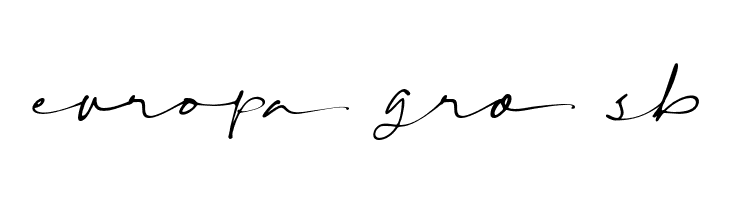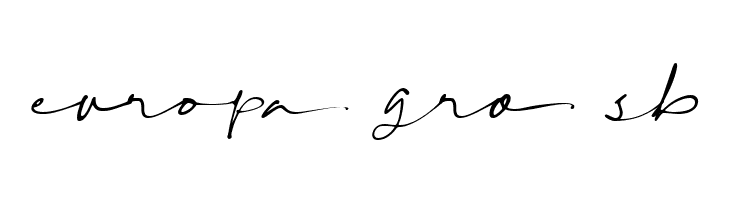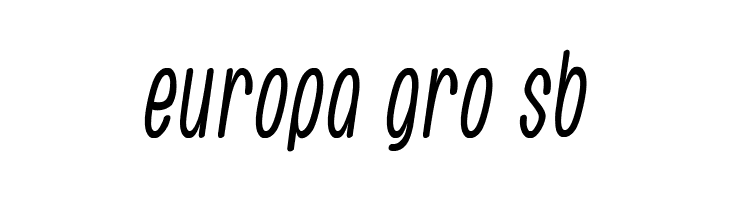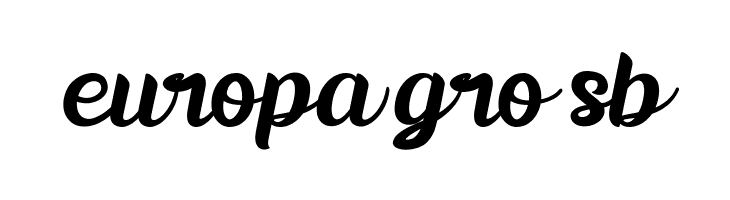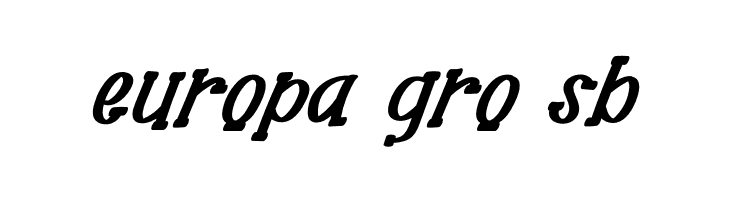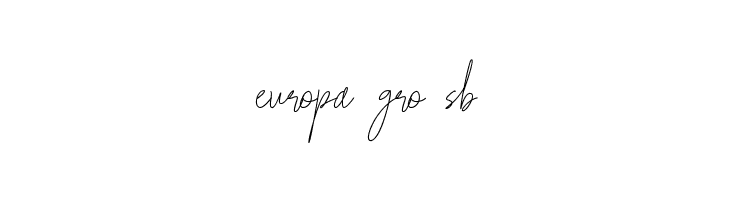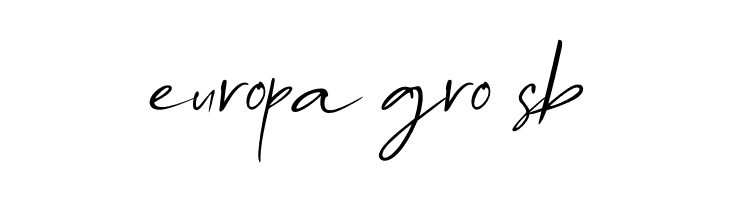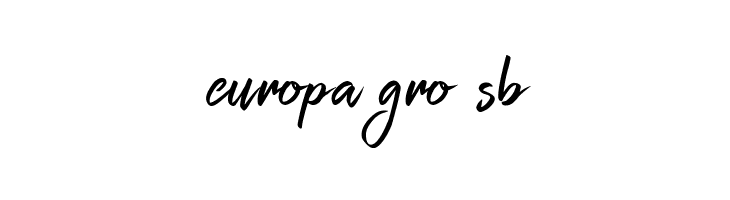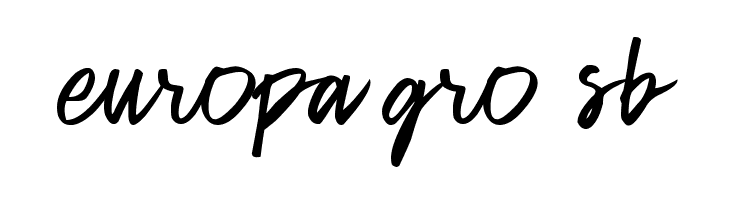
A stylish, slanted script font with a handwritten, elegant flow.
A stylish, slanted cursive font with a modern handwritten feel.
A playful, handwritten font with tall, narrow, and slightly slanted letters.
A bold, brush-style script font with dynamic, slanted characters.
A bold, modern script font with dynamic slanted characters and elegant curves.
A bold, dynamic script font with strong, slanted characters.
A casual, handwritten font with elongated, slanted letters and thin strokes.
A dynamic, handwritten cursive font with elongated, slanted letters and varied stroke thickness.
A dynamic handwritten font with fluid, slightly slanted letterforms and playful lowercase characters.
A dynamic and energetic script font with fluid, slightly slanted letterforms.